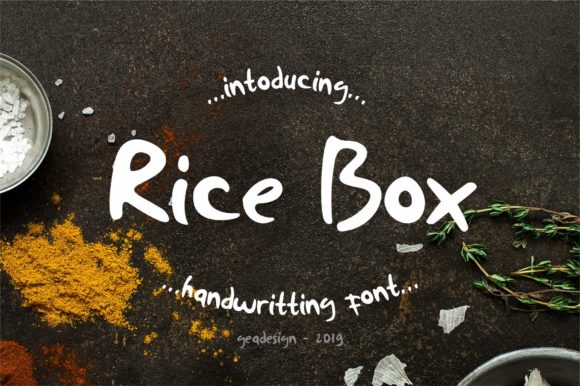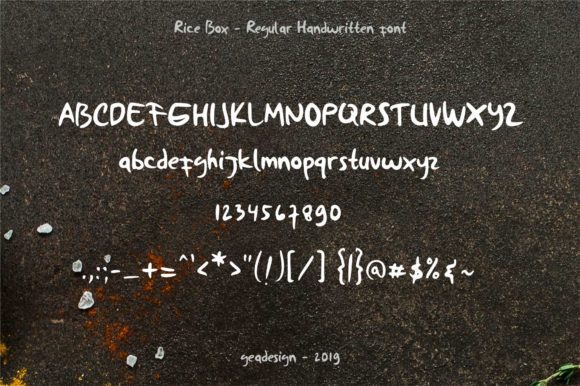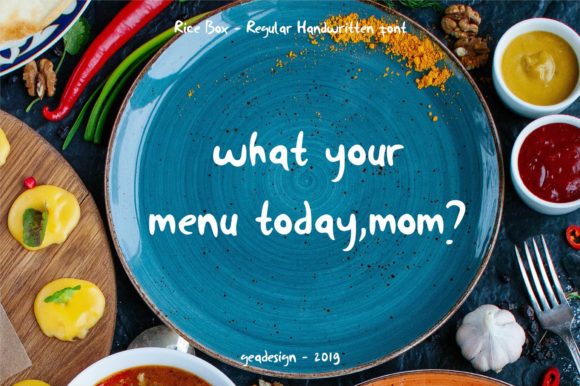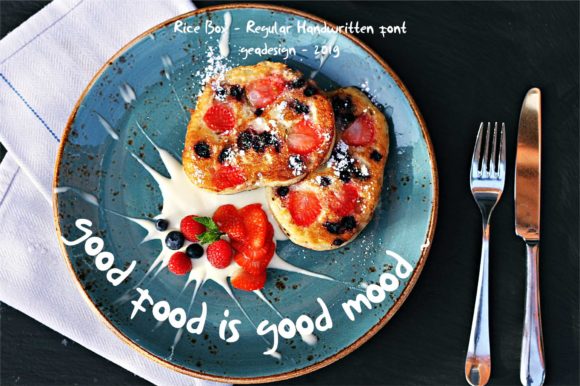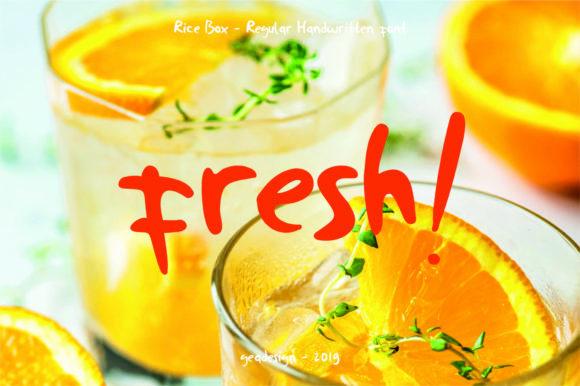
HomeScript FontsRice Box Font Script Fonts Rice Box Font FacebookXPinterestWhatsApp Rice Box Font Poster 2 Rice Box Font Poster 3 Rice Box Font Poster 4 Rice Box Font Poster 5 About Rice Box Font The Rice Box is a striking handwritten font. It was inspired by lunch menu’s with a bold, fun, and fresh touch. DOWNLOAD NOW People also explored Mayoritte Font Queen Beauty Font Winter Hat Font Best Valentine Font Chopico Font Gladiola Font Adelishia Script Font Break Fly Font Happy Forever Font 307 0 TagsRice Box Font Previous articleThe Rich Family FontNext articleKamikaze Font LEAVE A REPLY Cancel reply Comment: Please enter your comment! Name:* Please enter your name here Email:* You have entered an incorrect email address! Please enter your email address here Website: Save my name, email, and website in this browser for the next time I comment. Personal Use Free Breakaway Personal Use Free Read more about this font Time for Presents Personal Use Free Read more about this font Angelika Playful Personal Use Free Read more about this font Bright Dreams Personal Use Free Read more about this font BLOG How to Cut Any Font on Cricut: Convert a Font to SVG (Free) Turn any font into a clean SVG so it cuts crisp on Cricut - a quick 3-step workflow using a free font-to-SVG tool. Using Fonts in Digital Marketing: Tips to Strengthen Your Brand Identity Best Fonts for T-Shirt Design – Top 2025 Picks Modern Sans-Serif Fonts That Brands Love in 2025